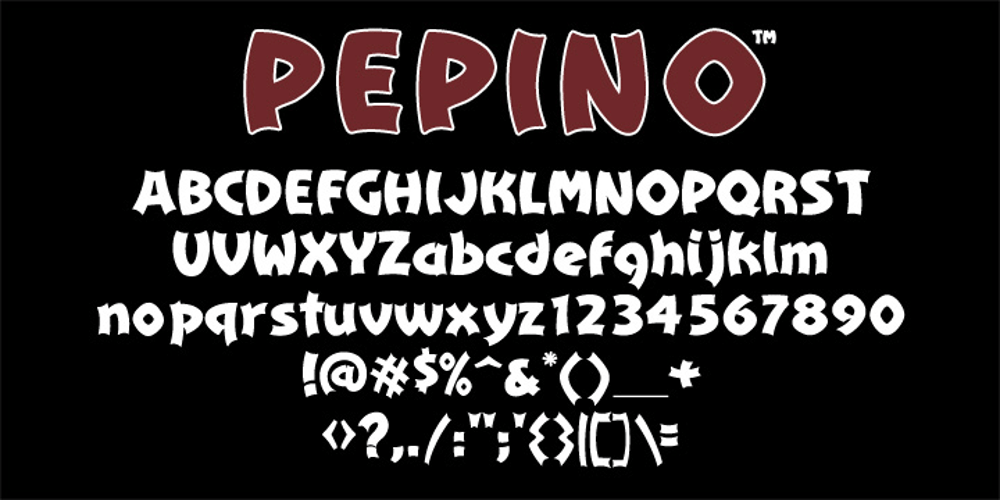
Pepino Font Family was designed by Robert Petrick and published by Robert Petrick. Pepino contains 1 styles and family package options. Pepino is loosely based on the classic font Hobo but Pepino is a completely new and original drawing. The font is bold, fun, casual, easy to set and read.